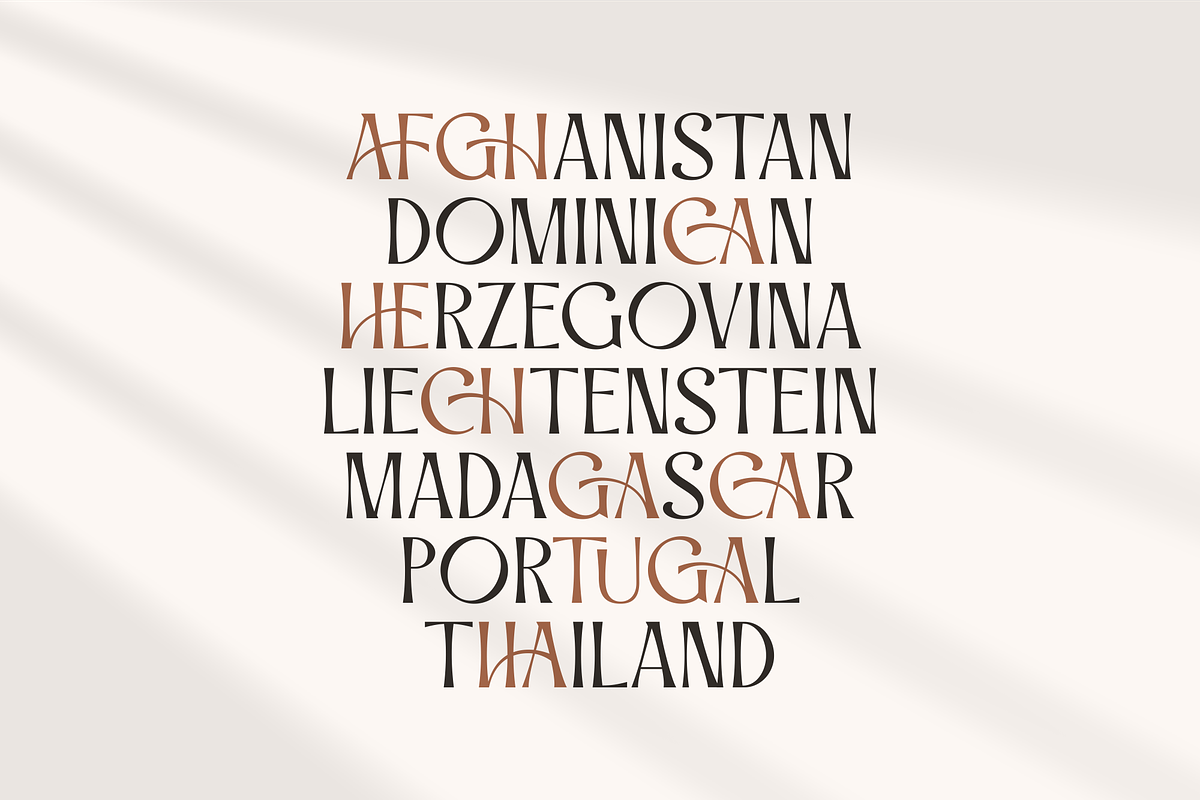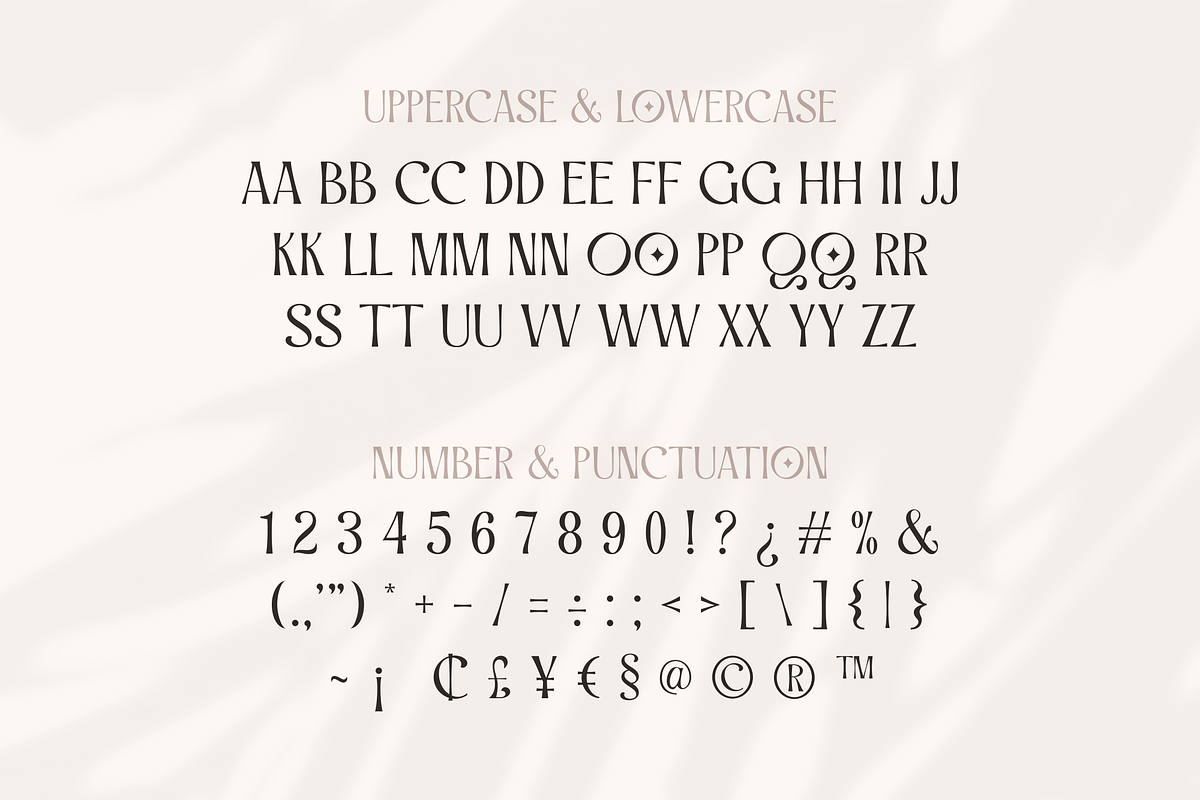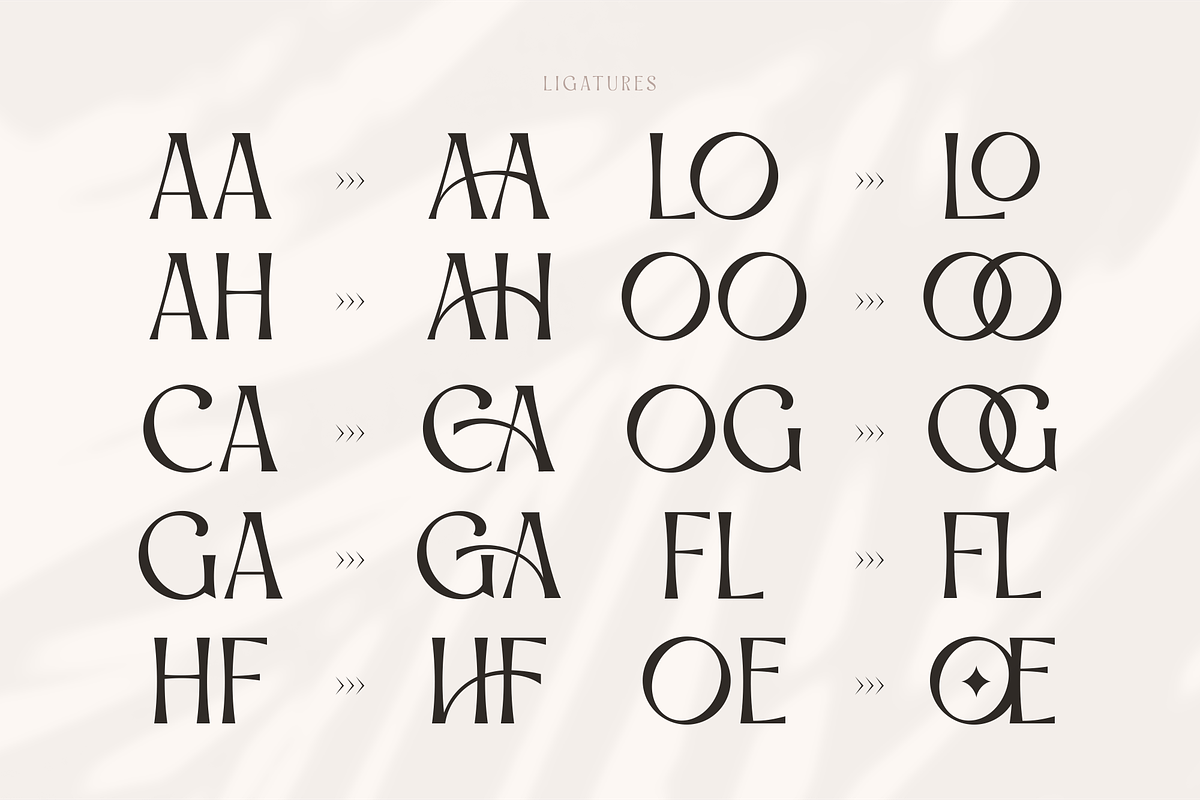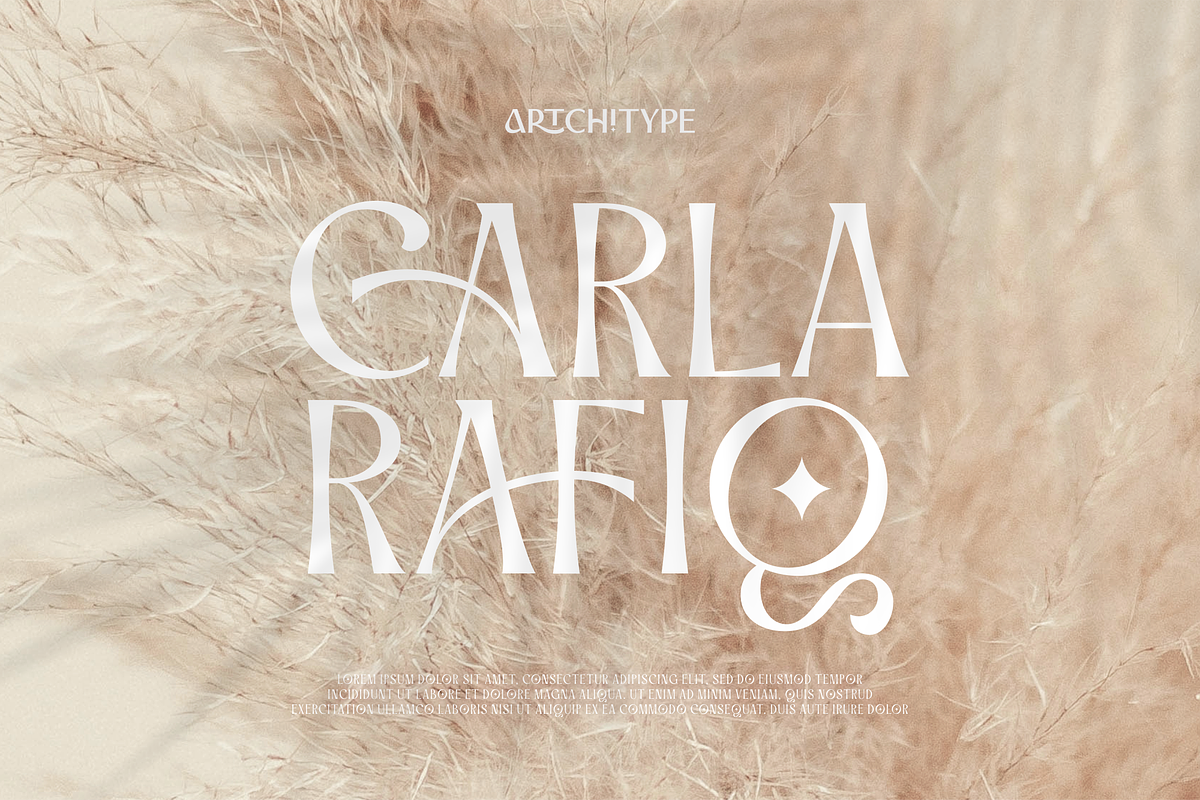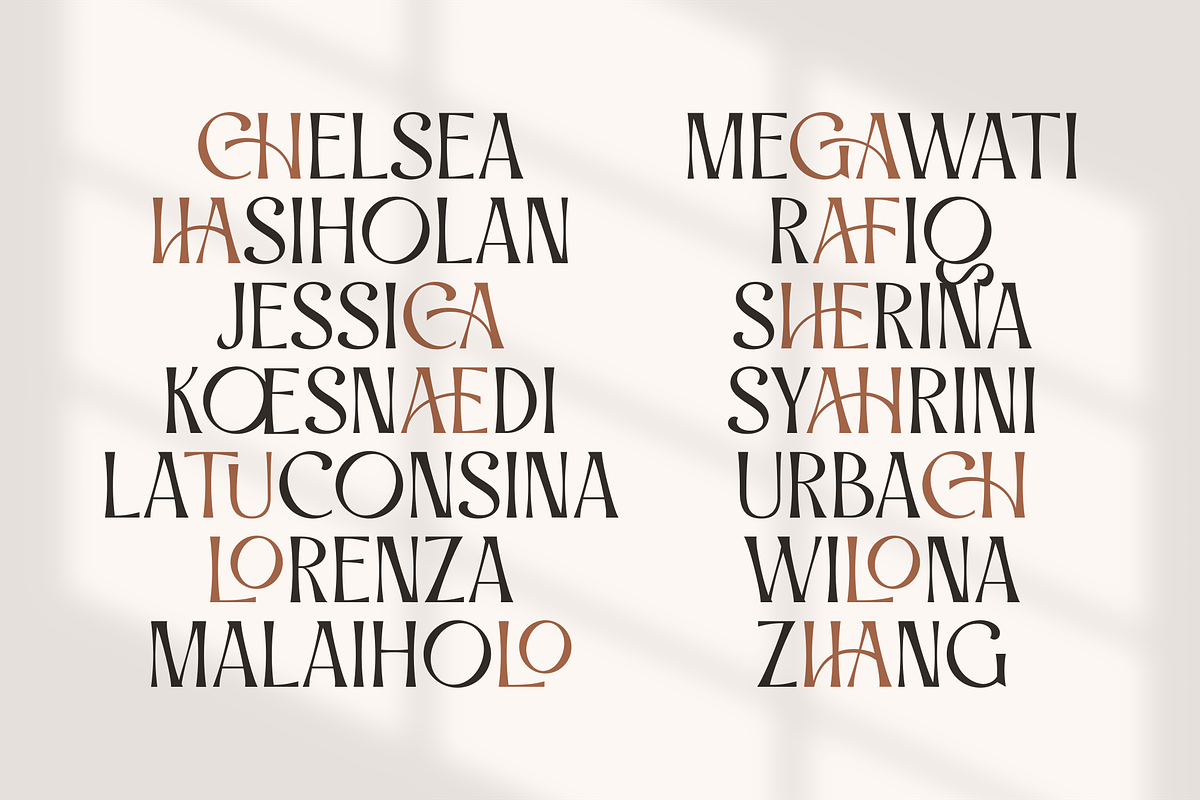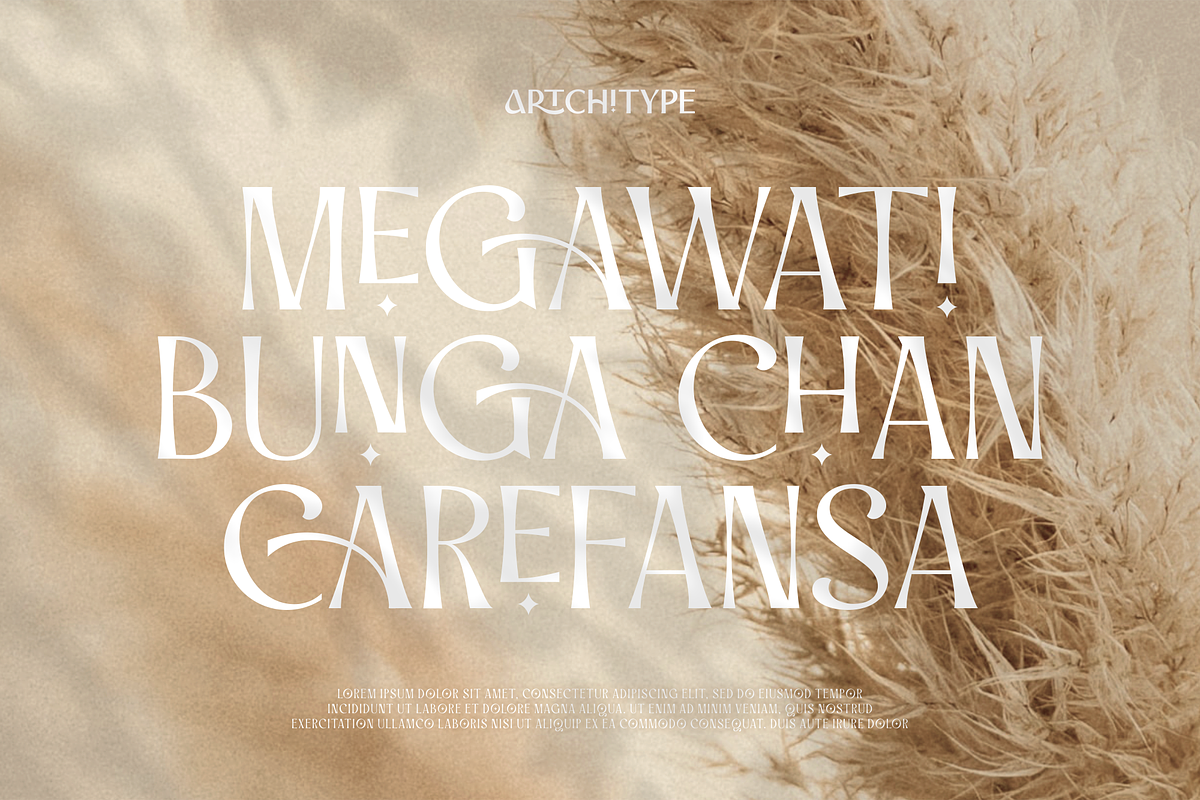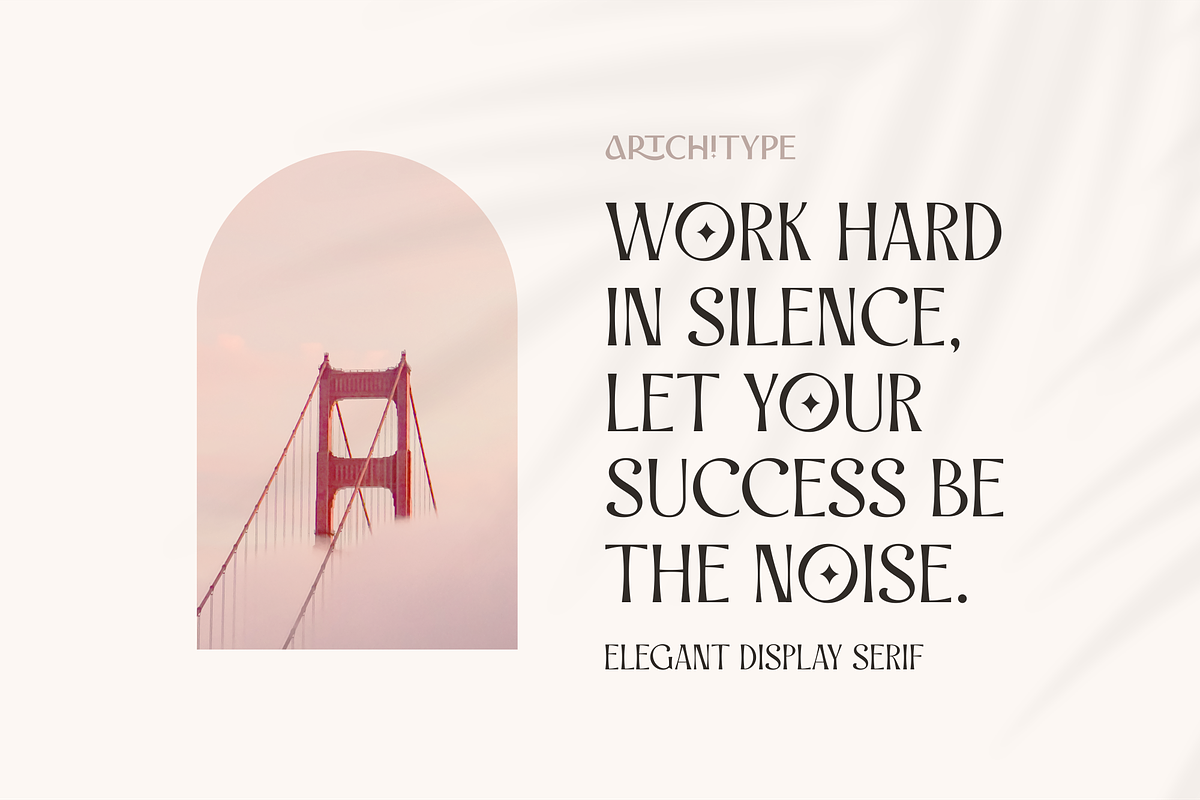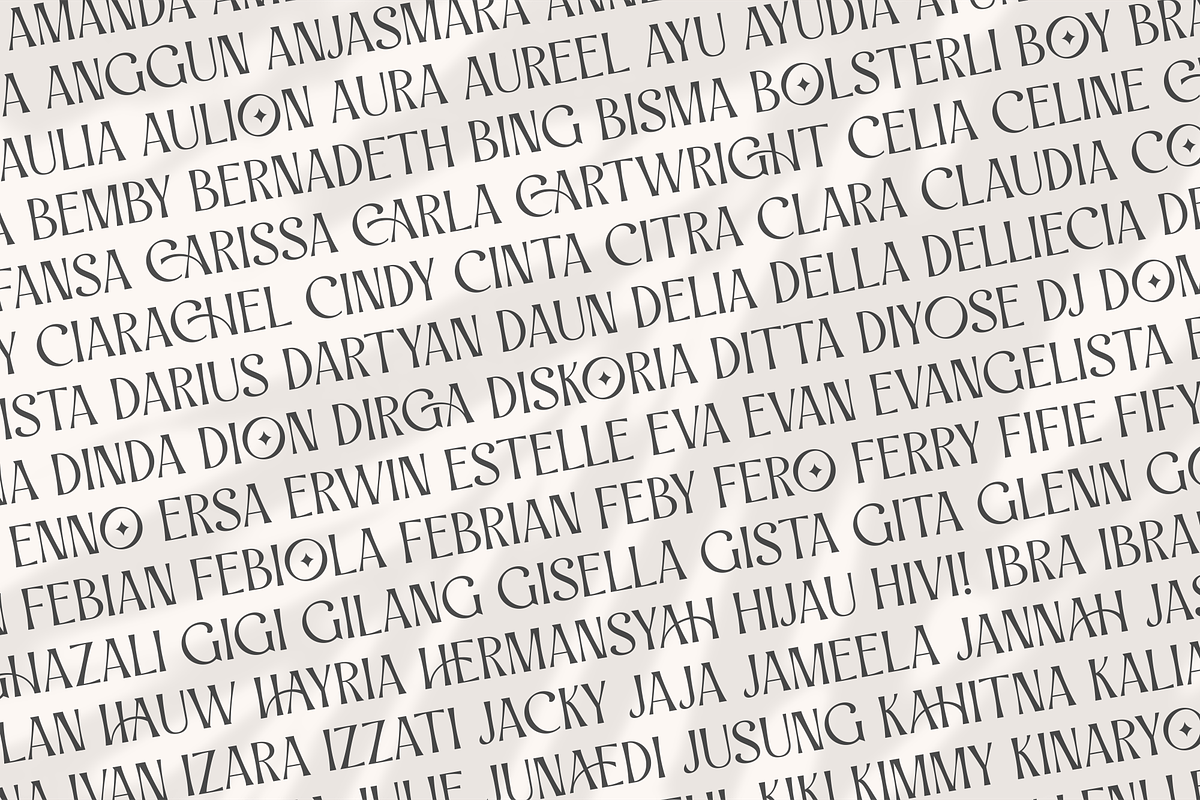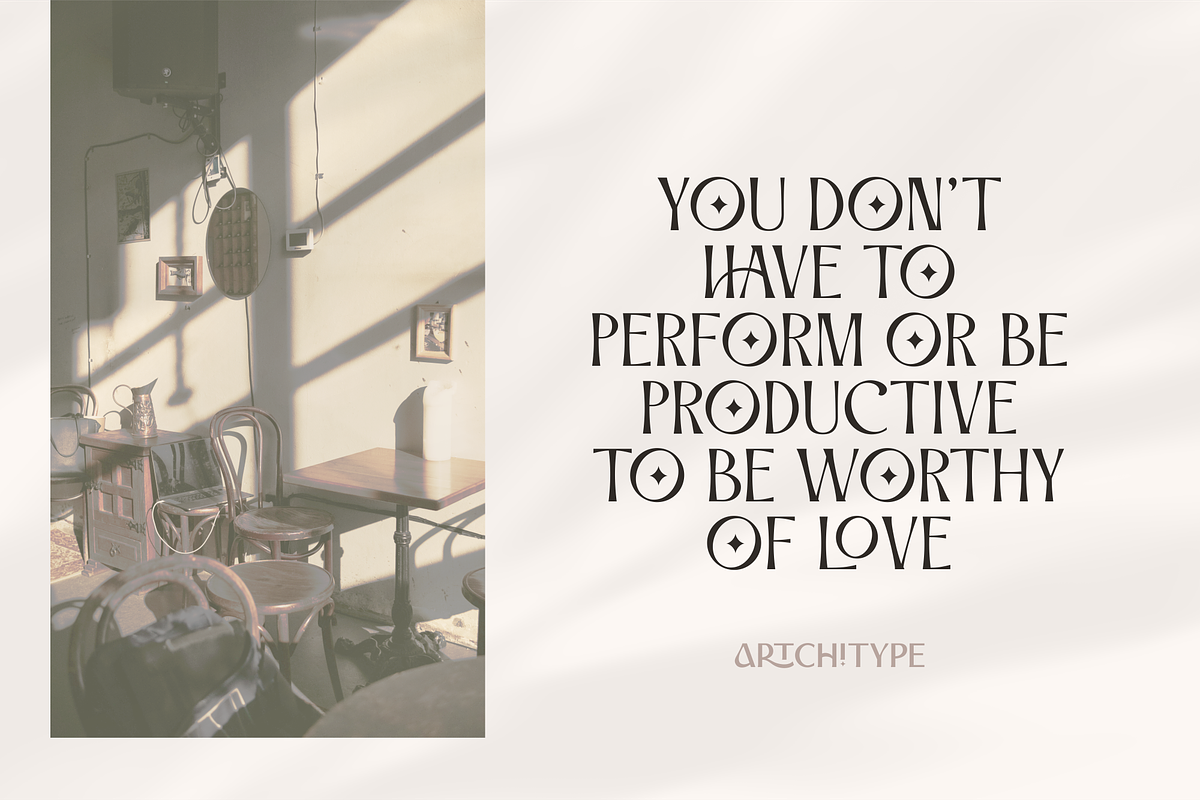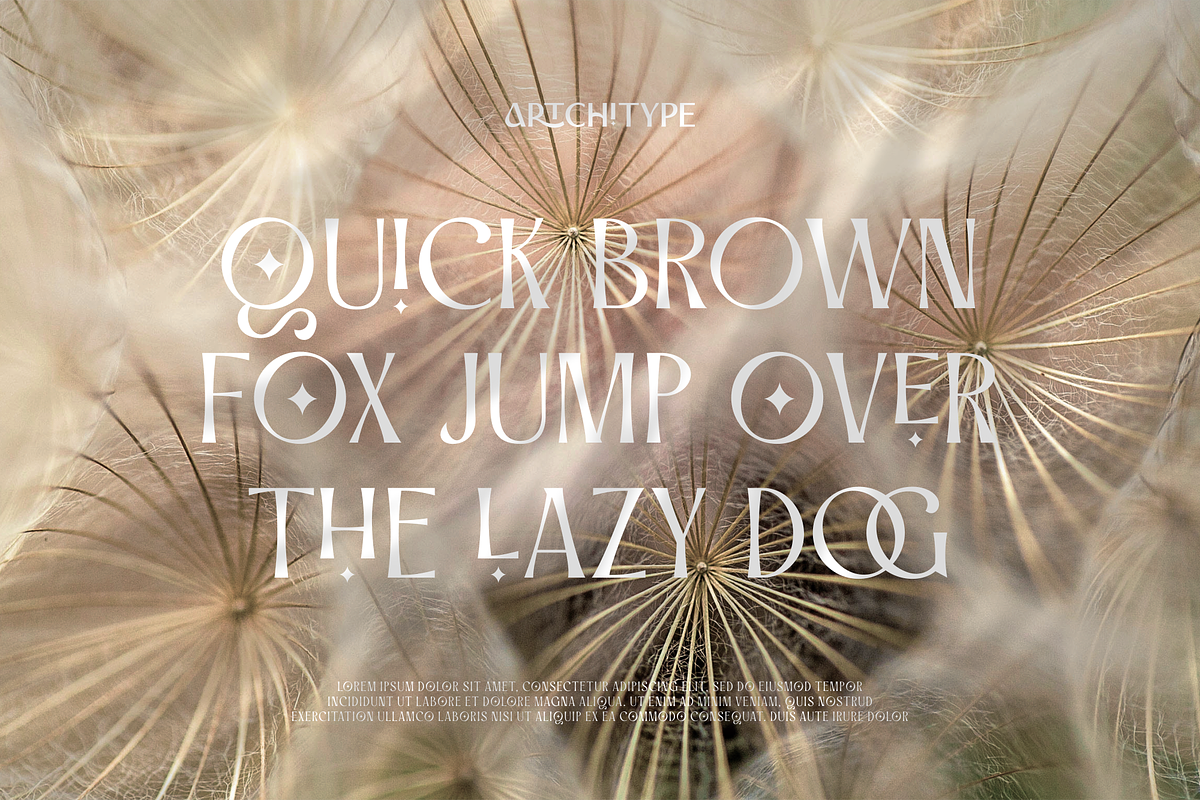
Saqirah - Elegant Display Serif
Saqirah is classy display serif font with 280+ characters. Includes uppercase, lowercase characters, multilingual, alternates and most common other characters.
Saqirah is perfect for logos, social media posts, product packaging, product designs, and other projects.